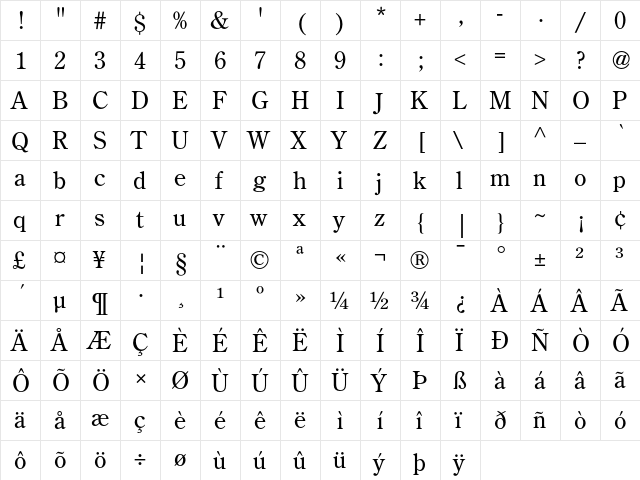
Century Old Style Regular
Design Context for Century Old Style Typeface
Century Old Style is a composed and adaptable typeface that performs quietly and consistently across a wide range of design contexts.